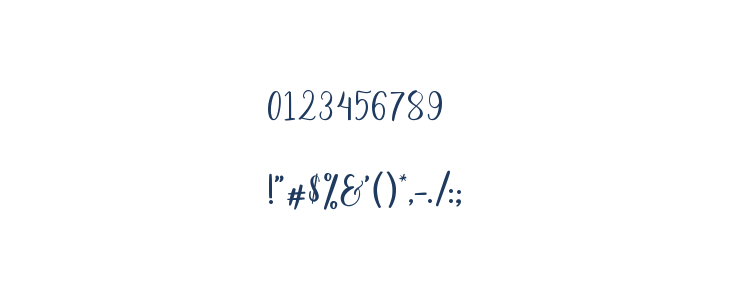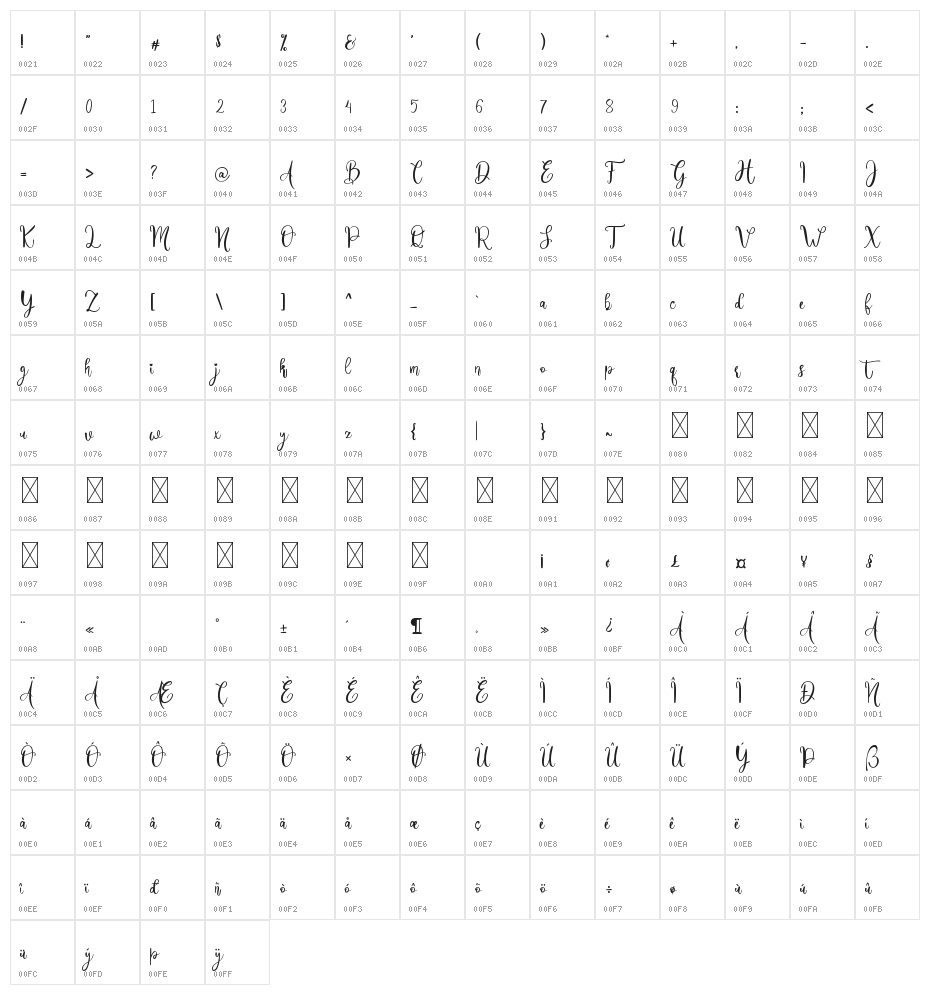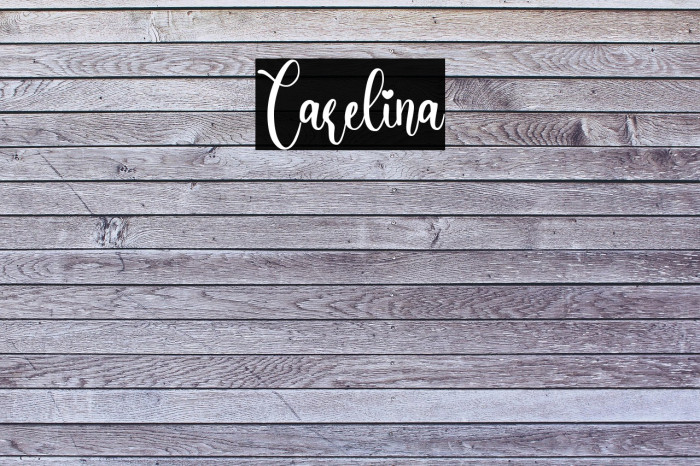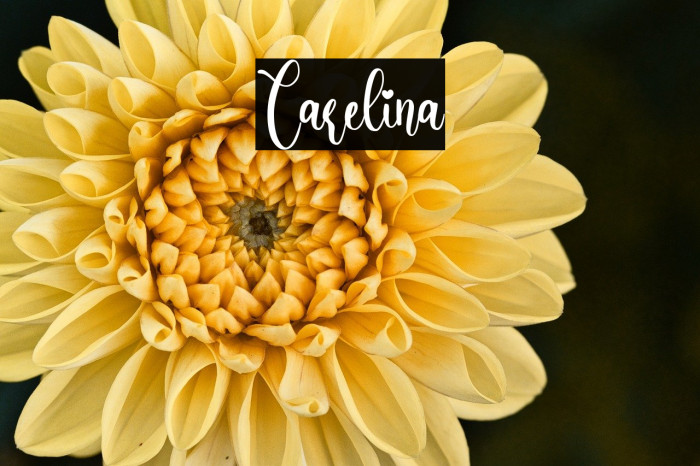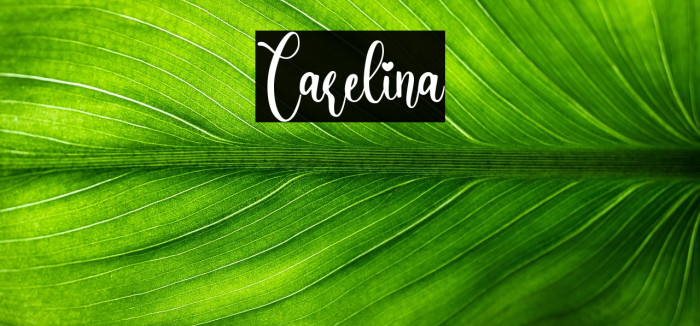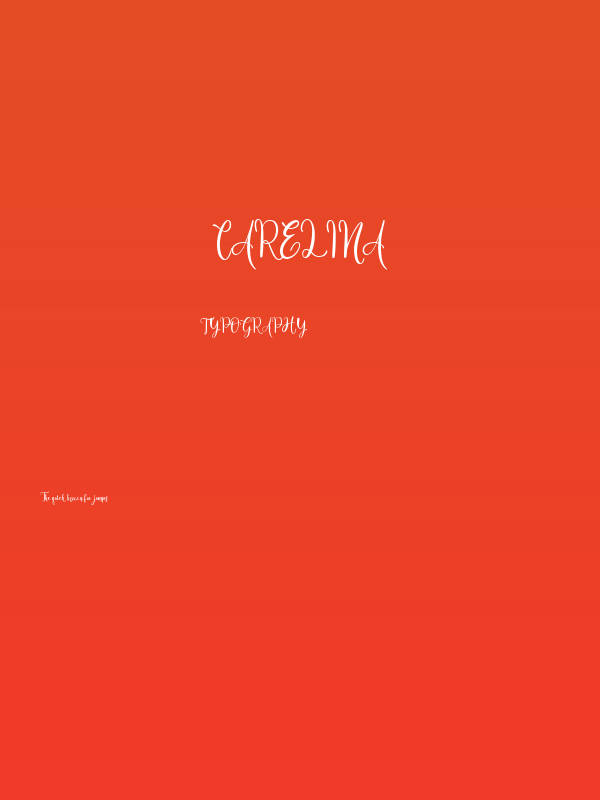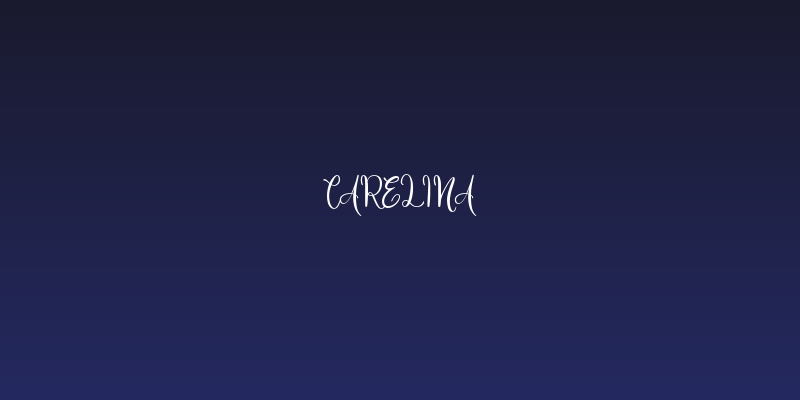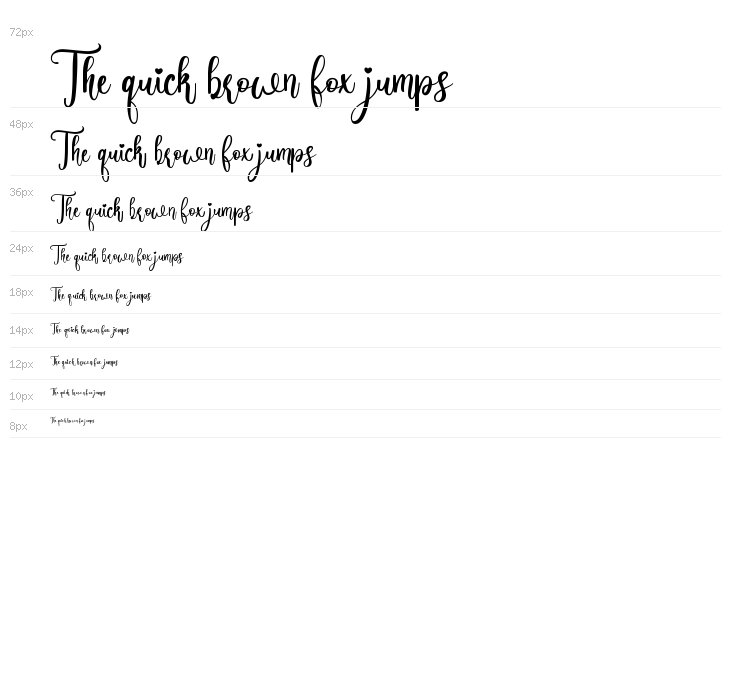
Carelina Font
Carelina Description
This font features an elegant and flowing script style, characterized by its intricate and decorative letterforms. The uppercase letters exhibit a graceful, looping design, while the lowercase letters maintain a consistent, cursive flow. The numerals are styled to match the overall script aesthetic, providing a cohesive look. Special characters are thoughtfully integrated, maintaining the font's ornate and artistic appearance. The font's design suggests a hand-drawn quality, adding a personal and sophisticated touch to any project.
| Proposed Projects | Ideal for wedding invitations, greeting cards, branding, and elegant packaging designs. |